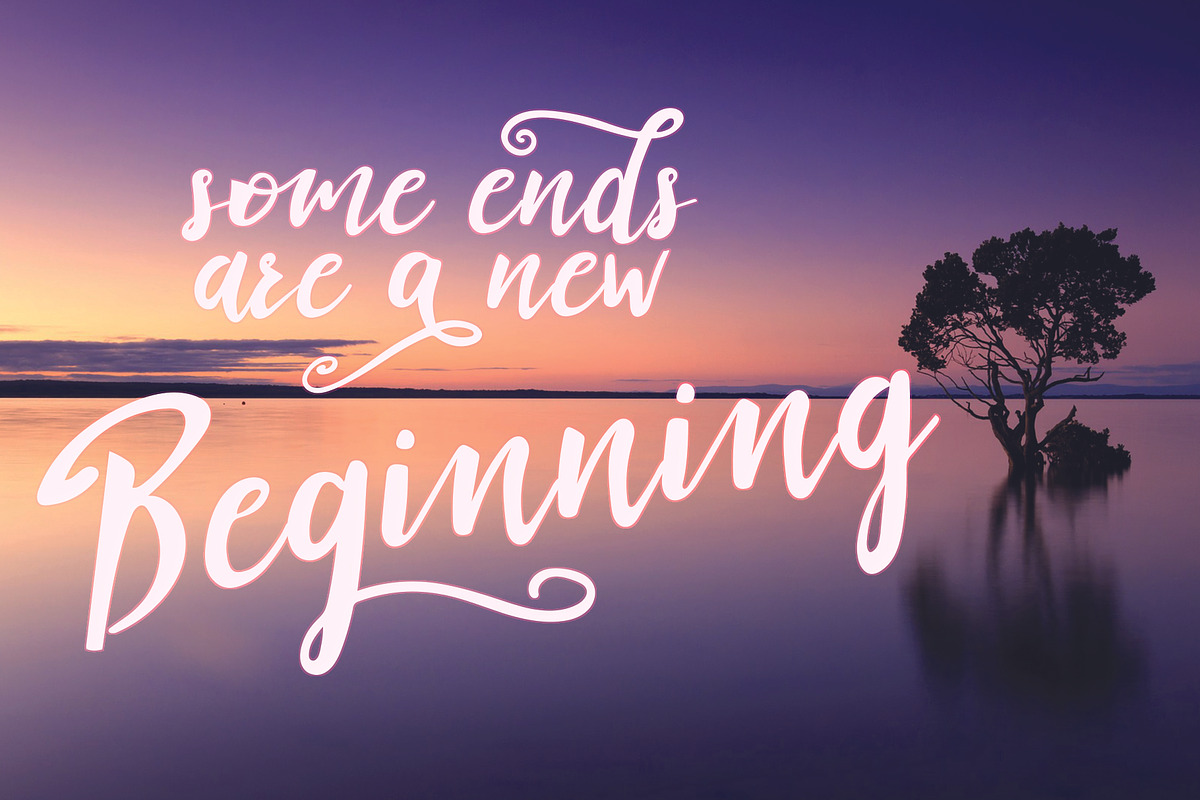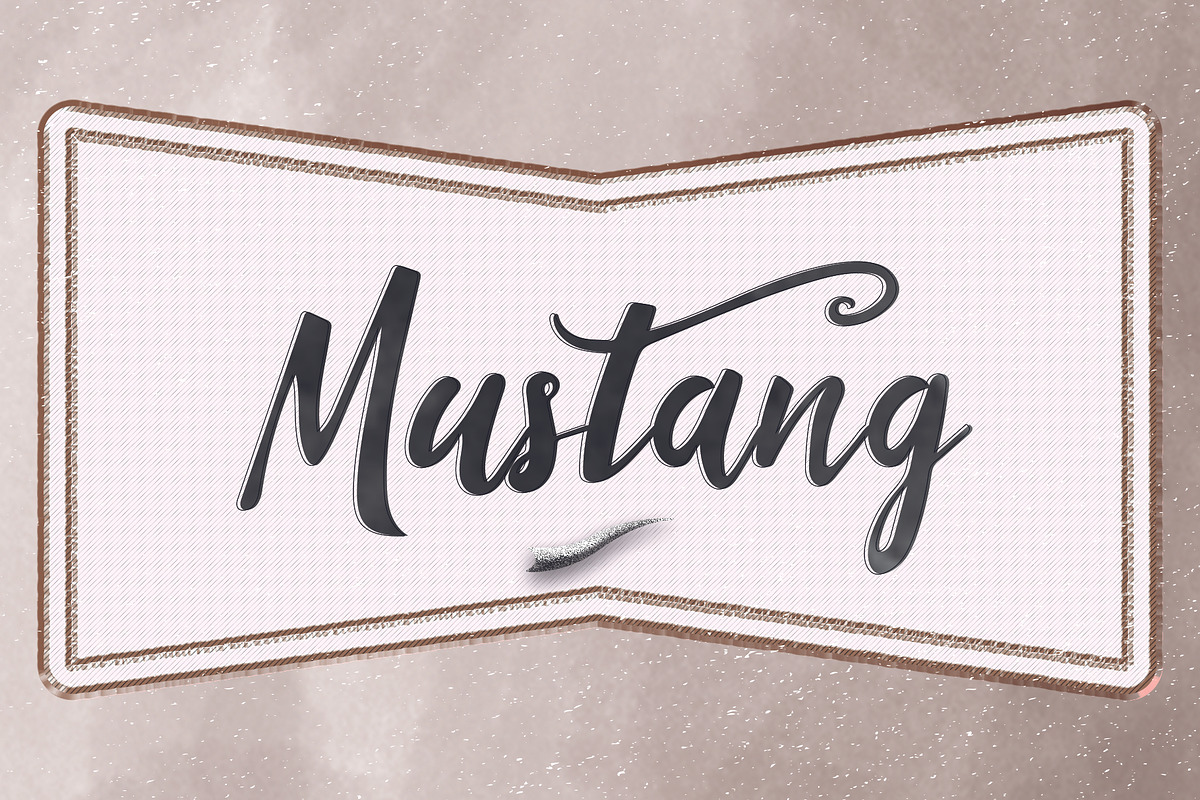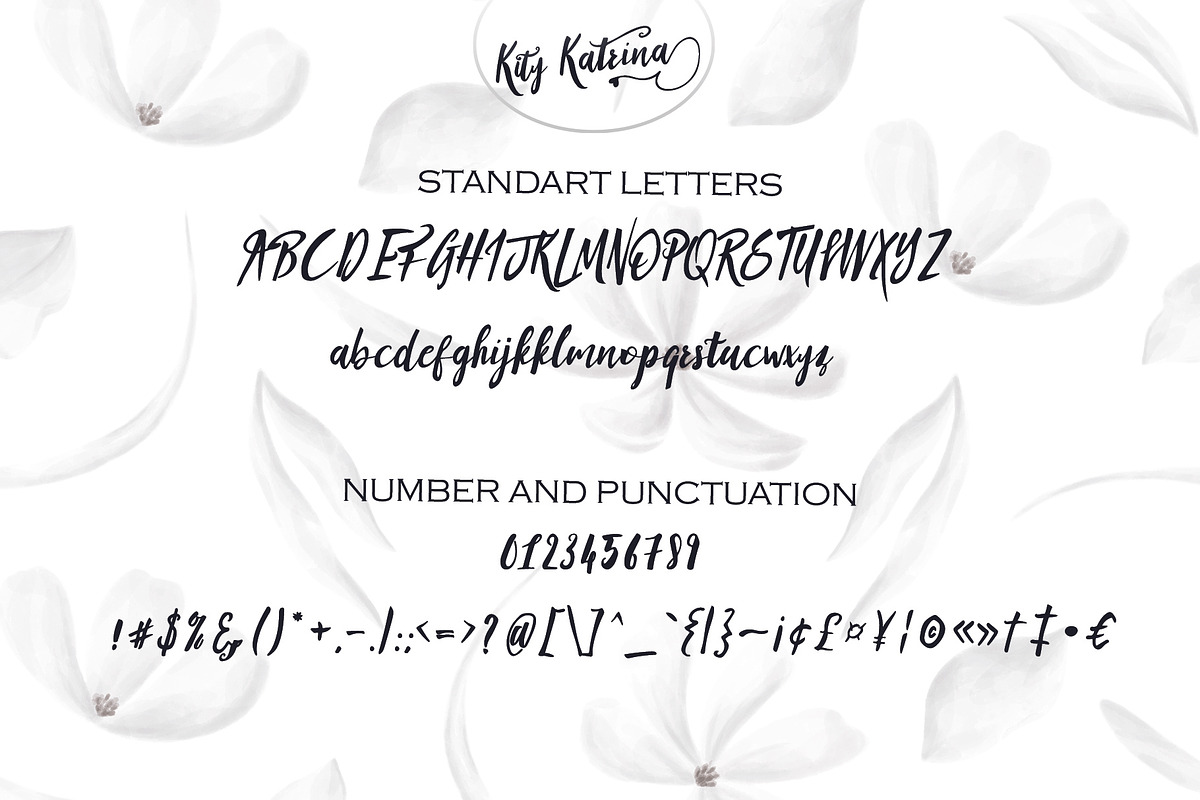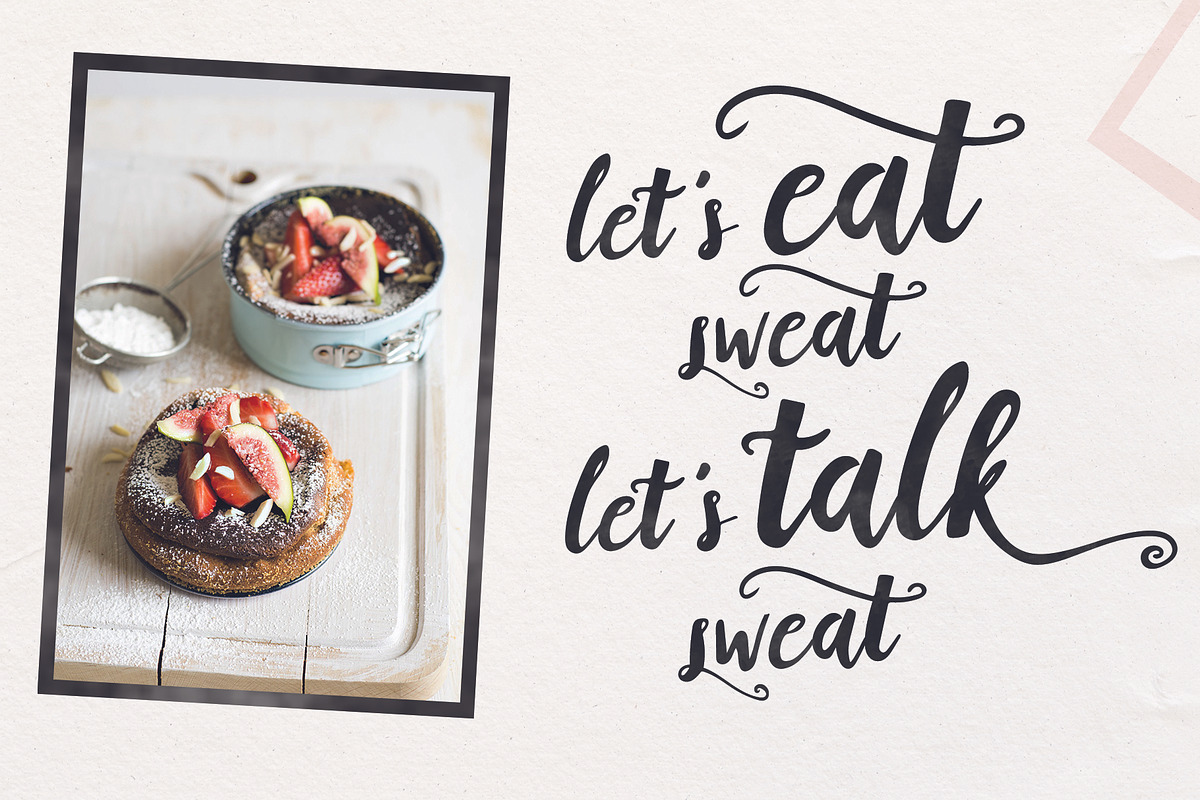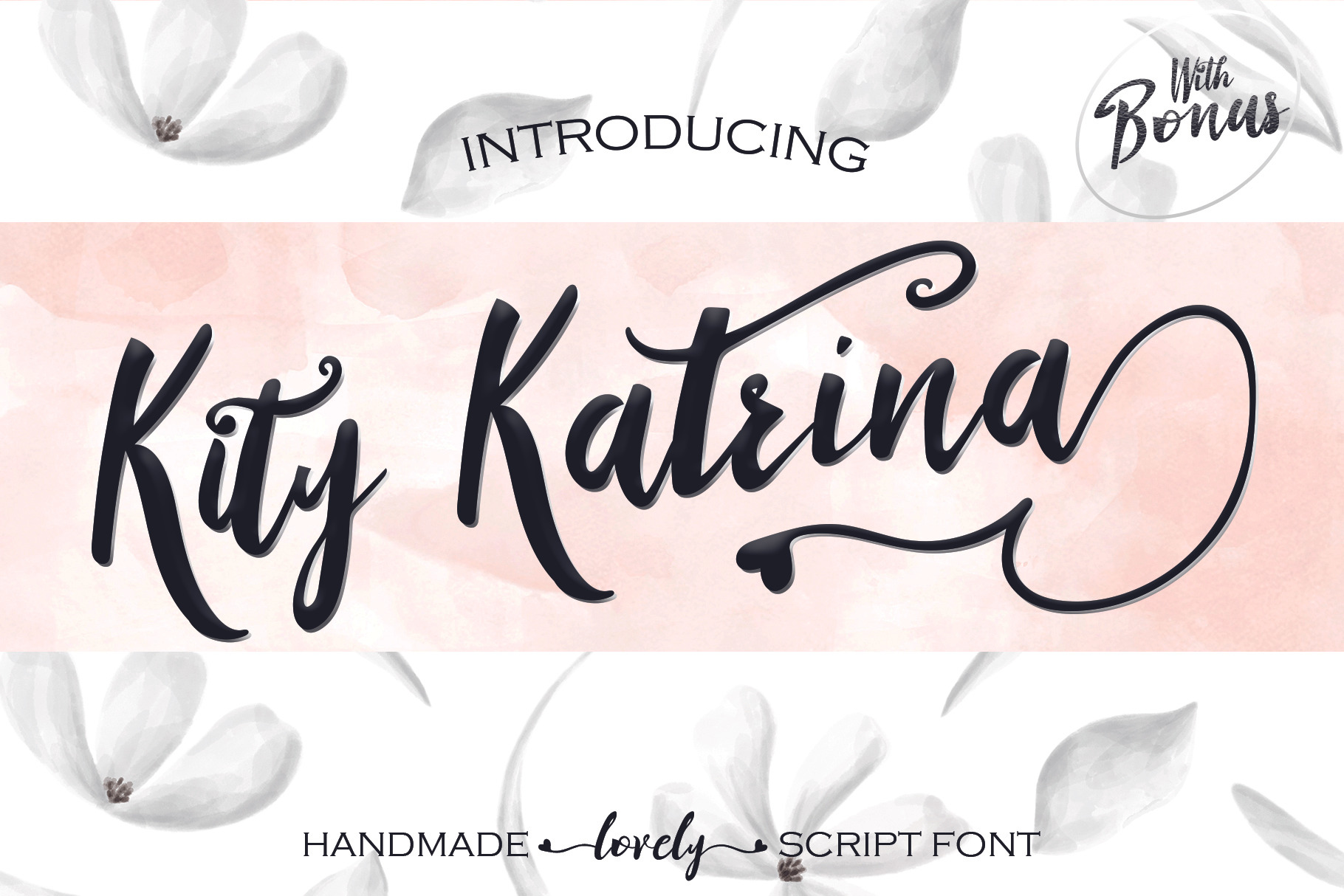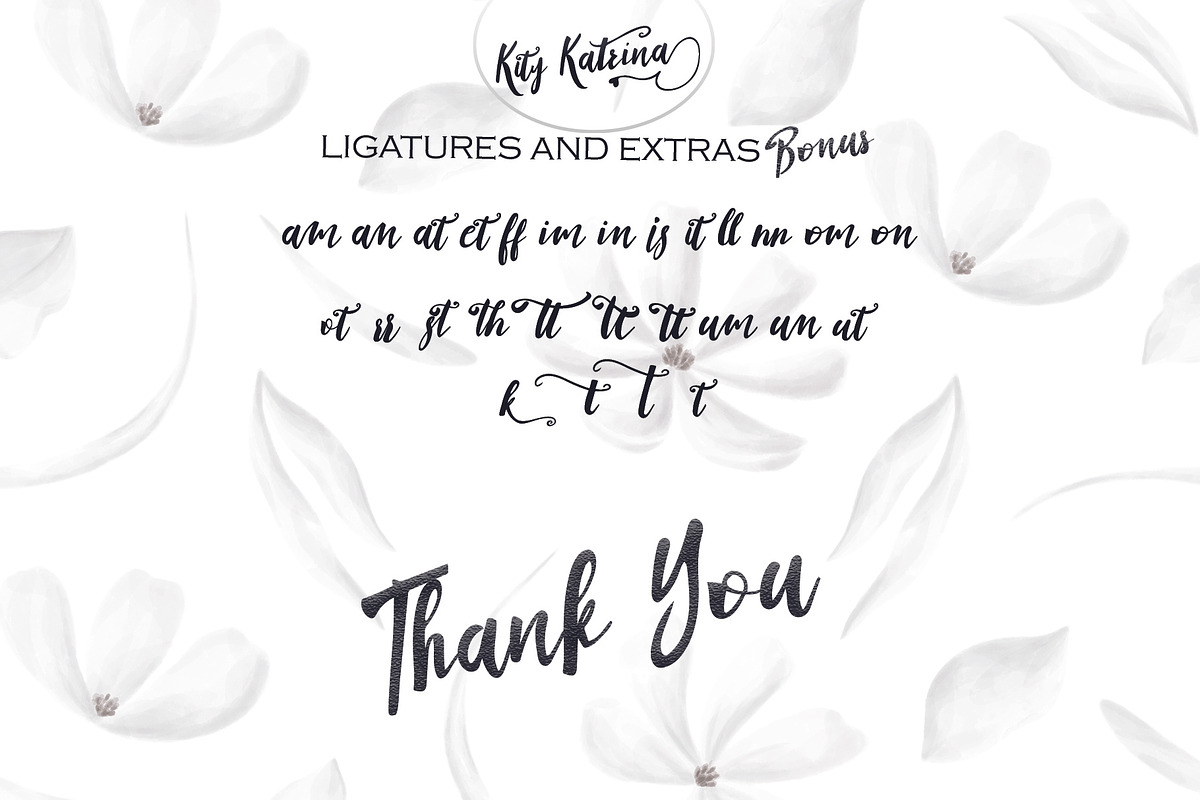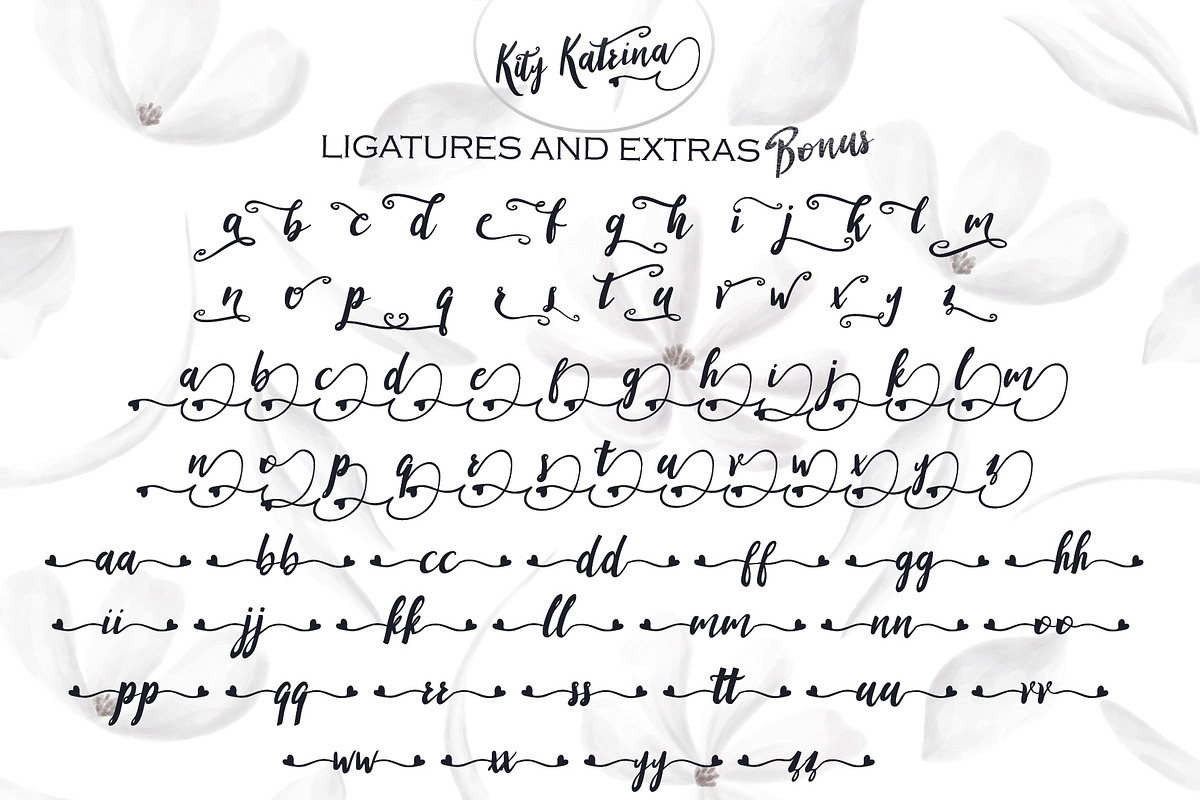
Kity Katrina Script Font
Let me introduce you the font Kity Katrina . It flows like a signature while you type it. It really shows the art of hand-work. It is very legible even though its nature looks like it has extreme lines. It is really unique in this regard. Awesome! Isn't it? :)
GREAT FOR
-Characteristic company logos
-Blog pages
-Logo of brands
-Projects you need to utilize a premium font
-The projects that require a font including lots of alternates.
WHAT'S INCLUDED?
-Uppercase
-Lowercase
-Numbers and Symbols
-Alternate Characters
-Ligatures